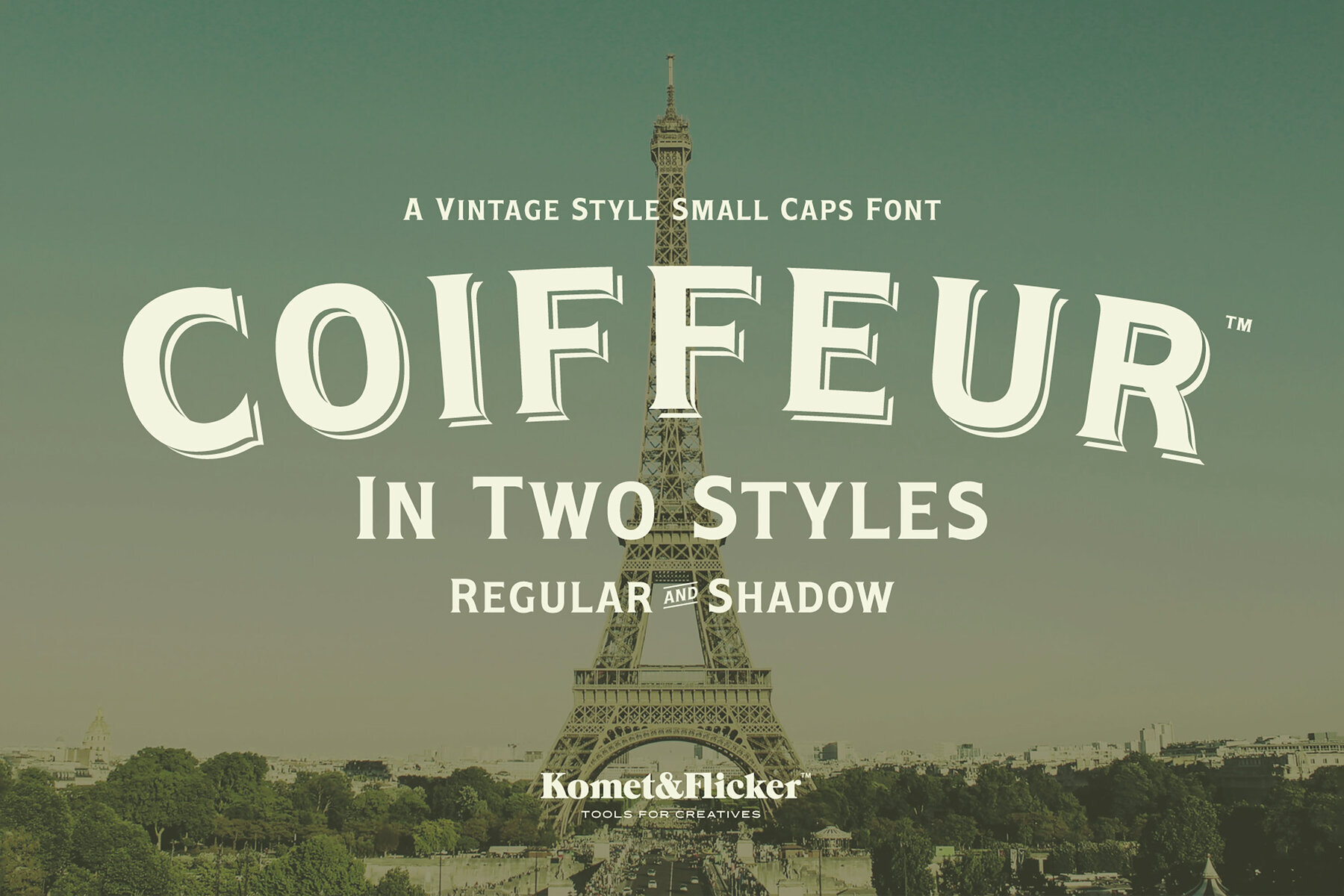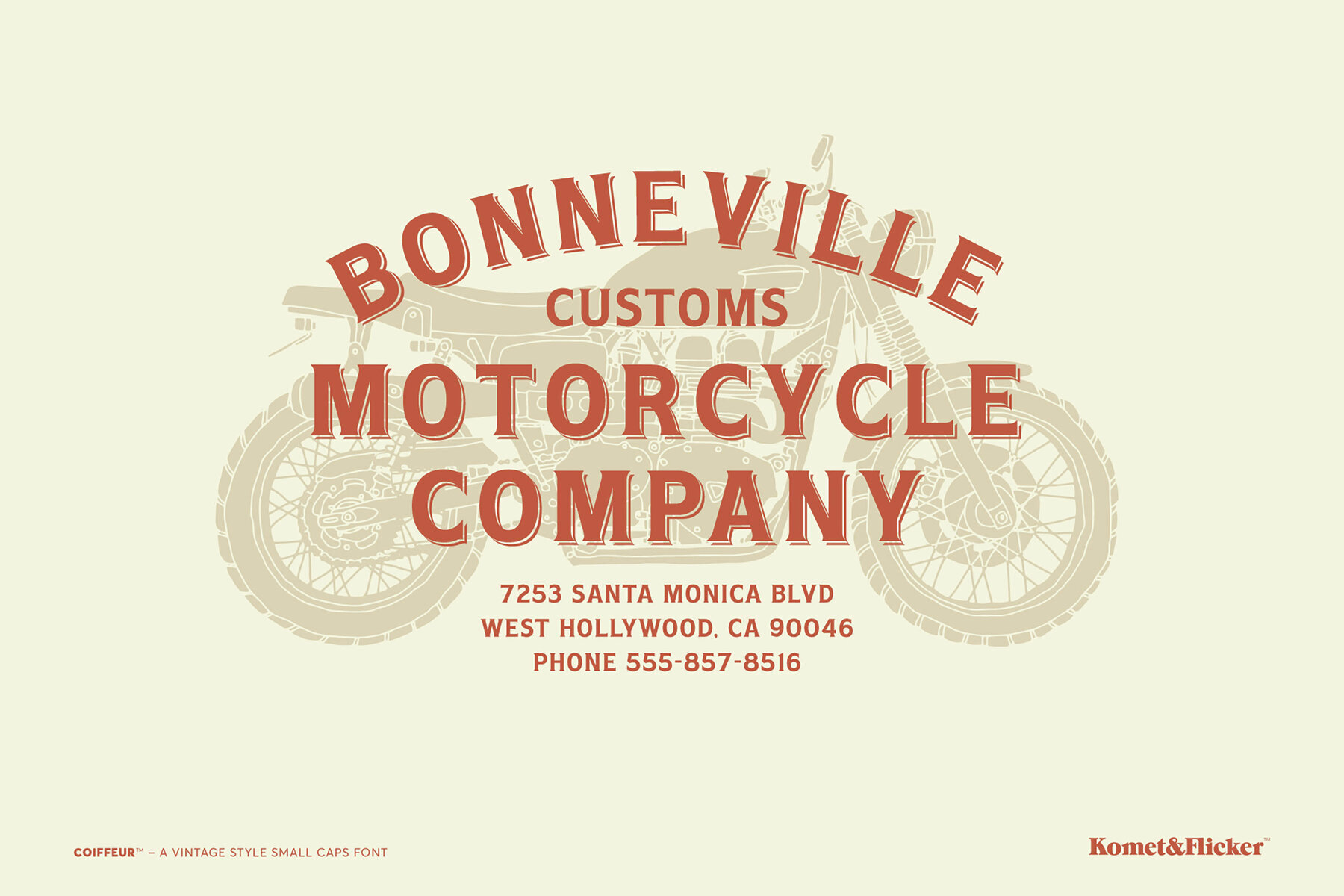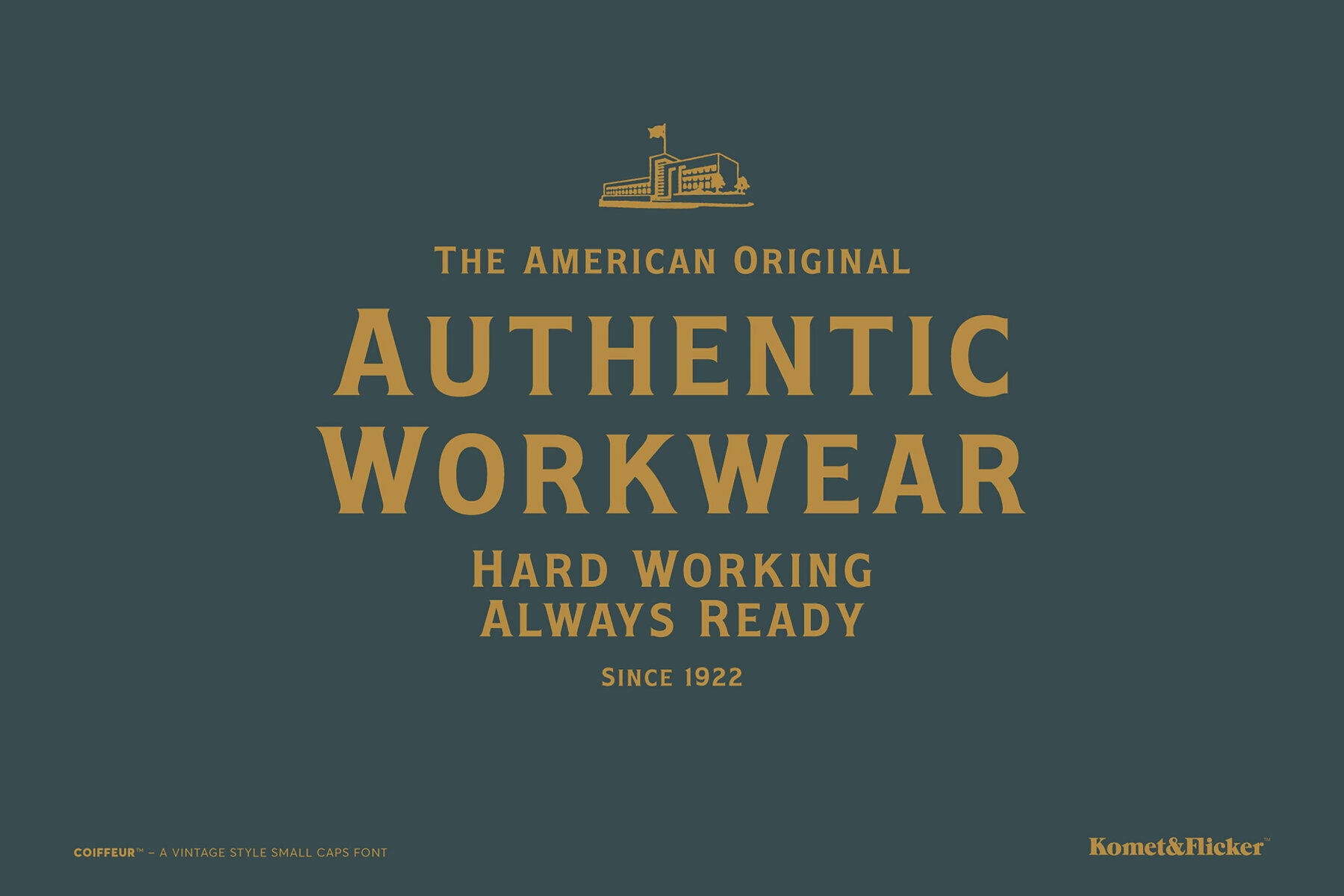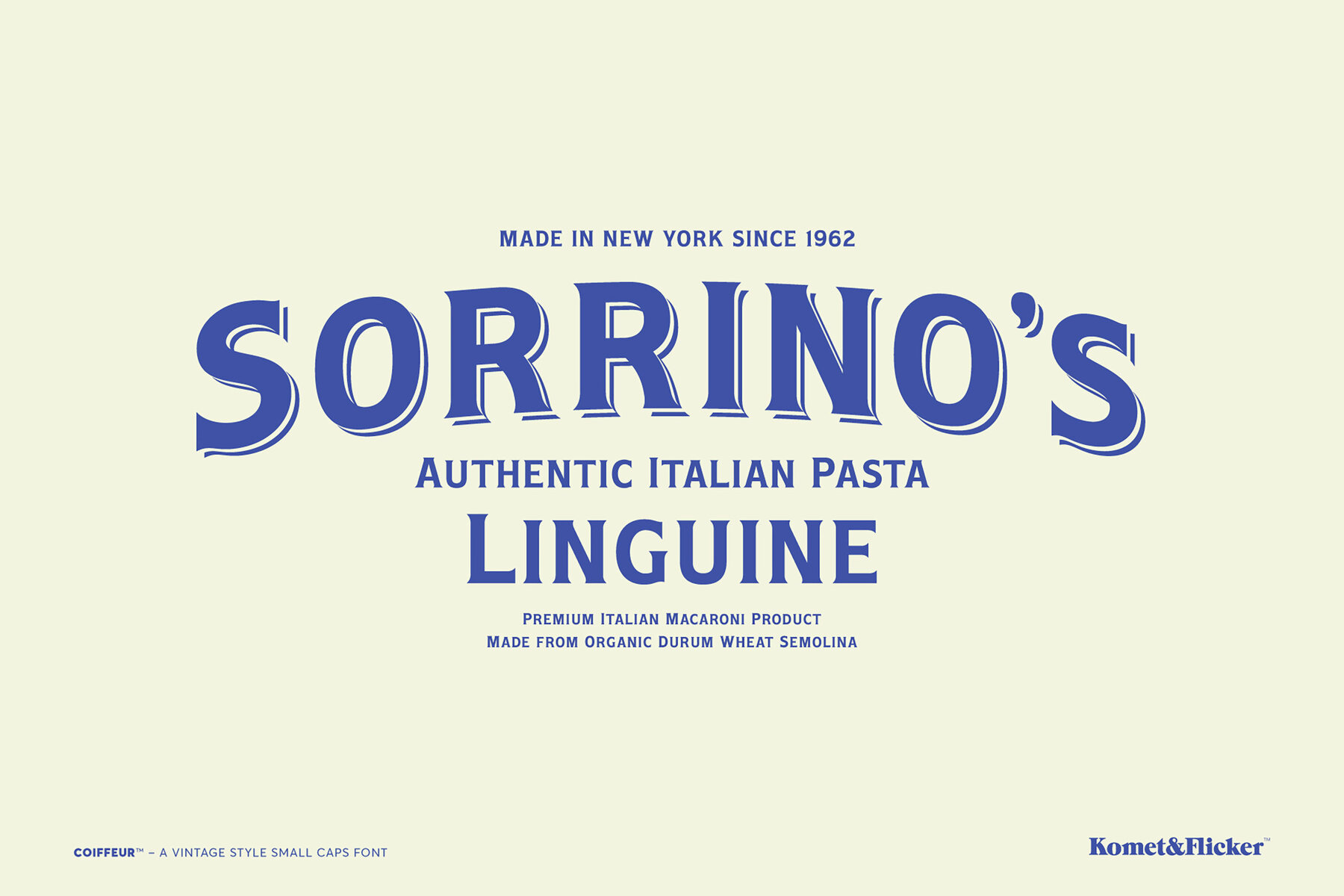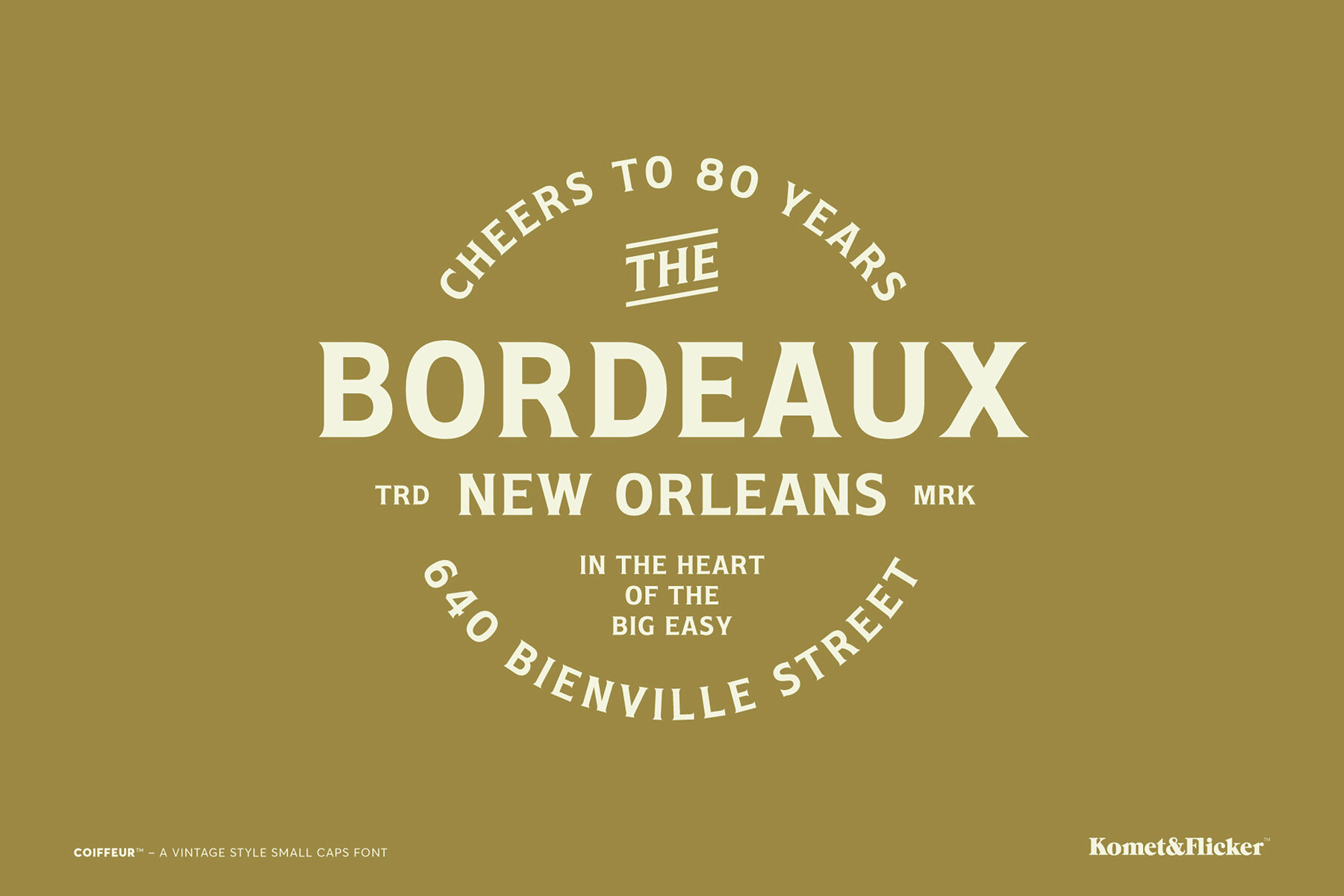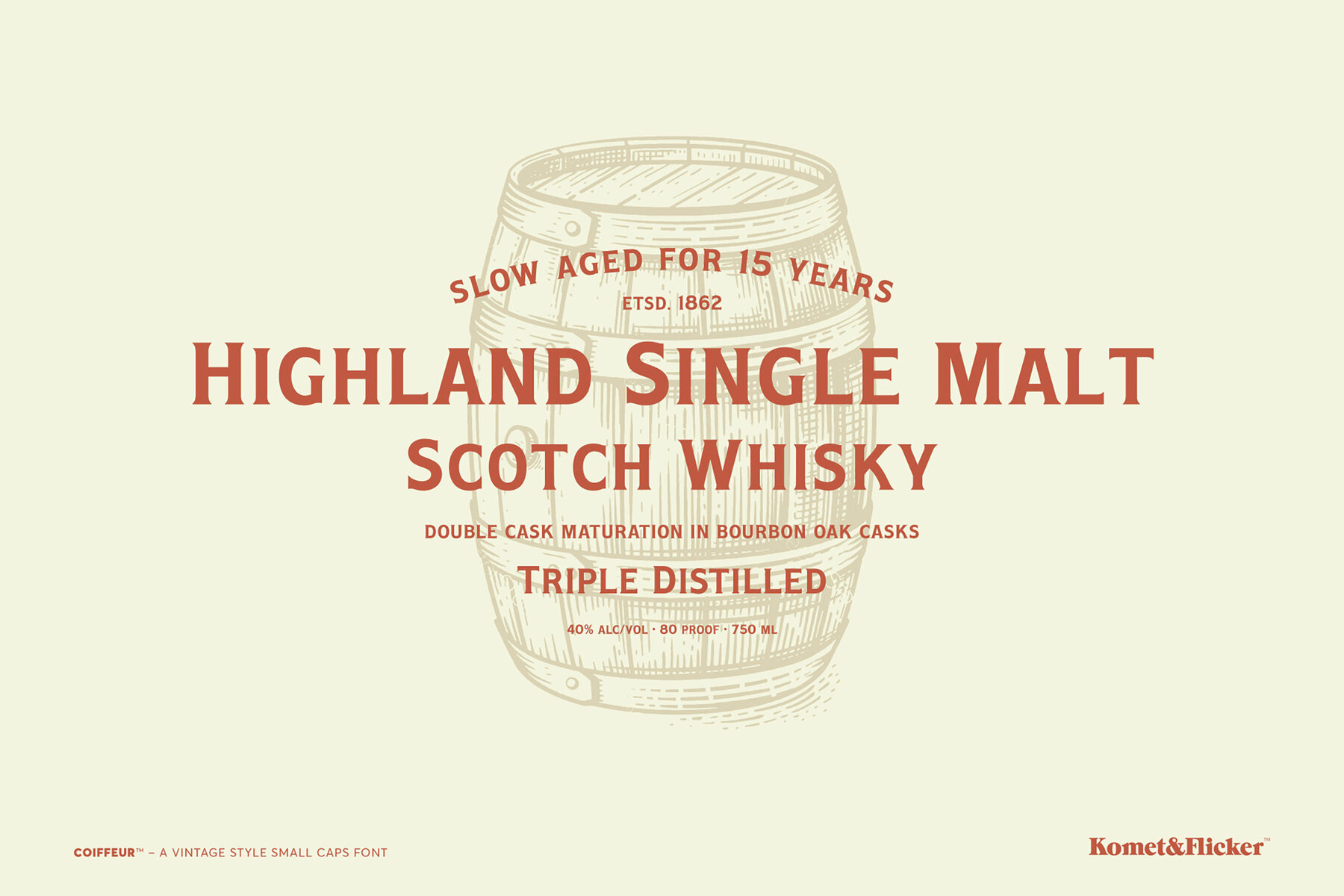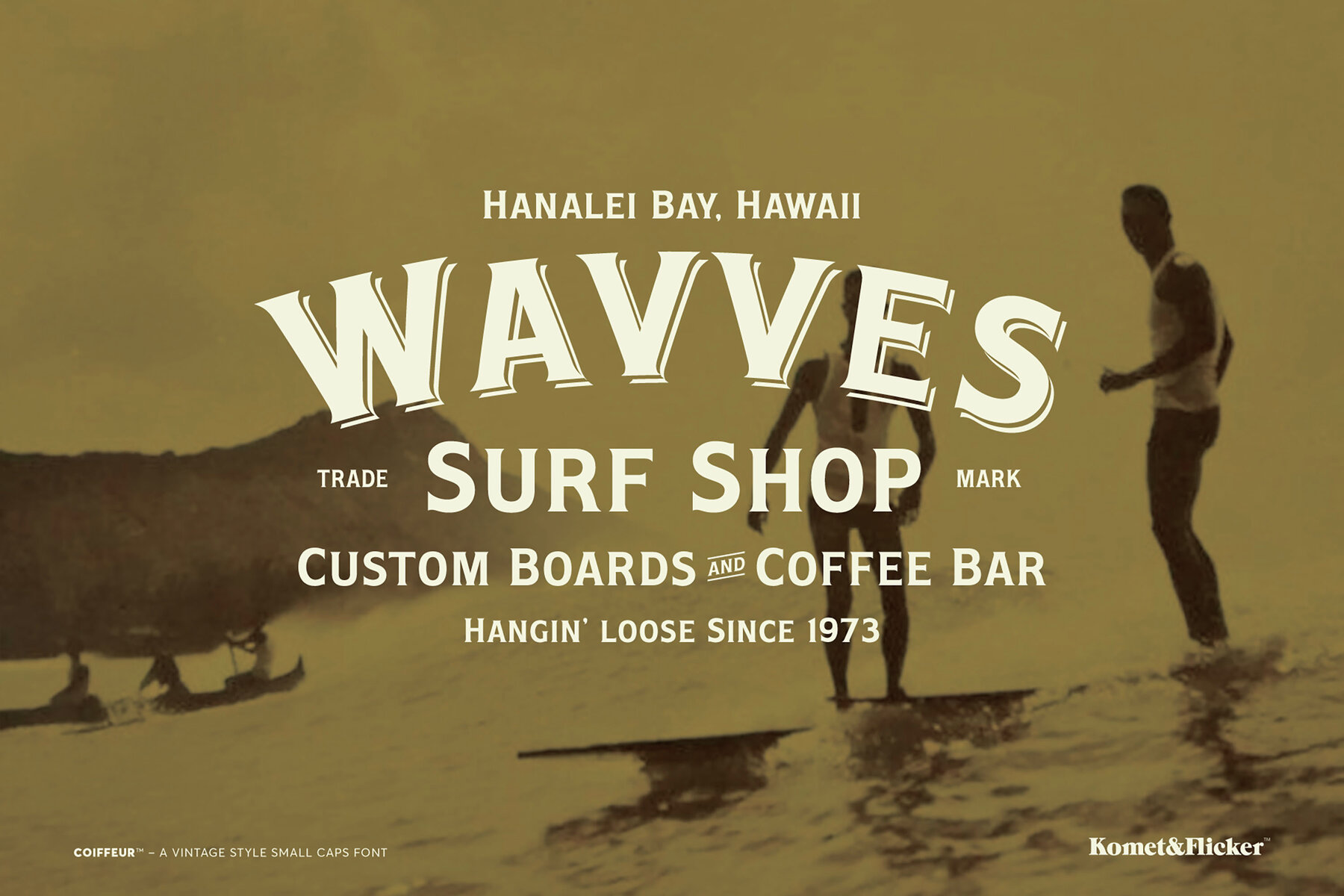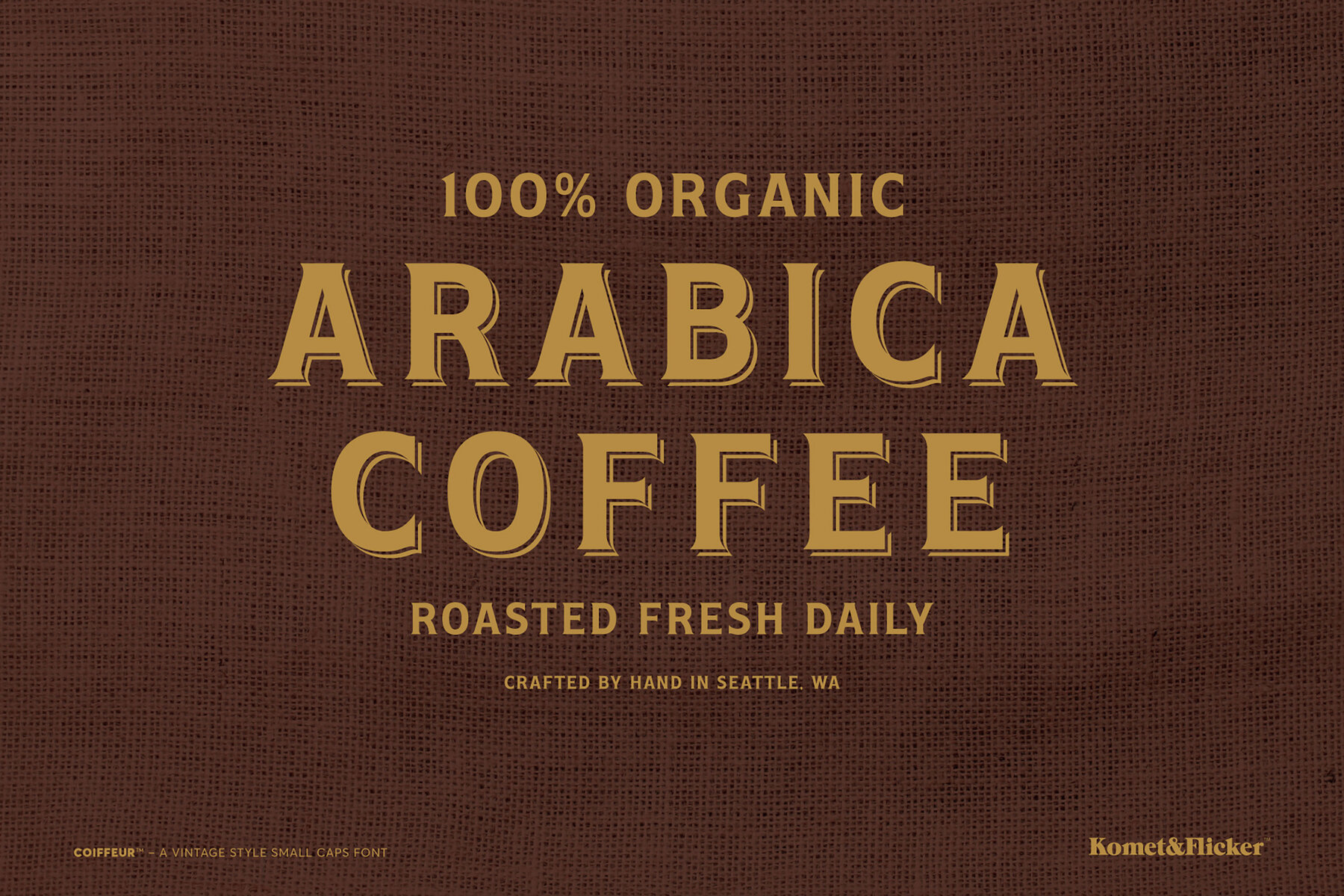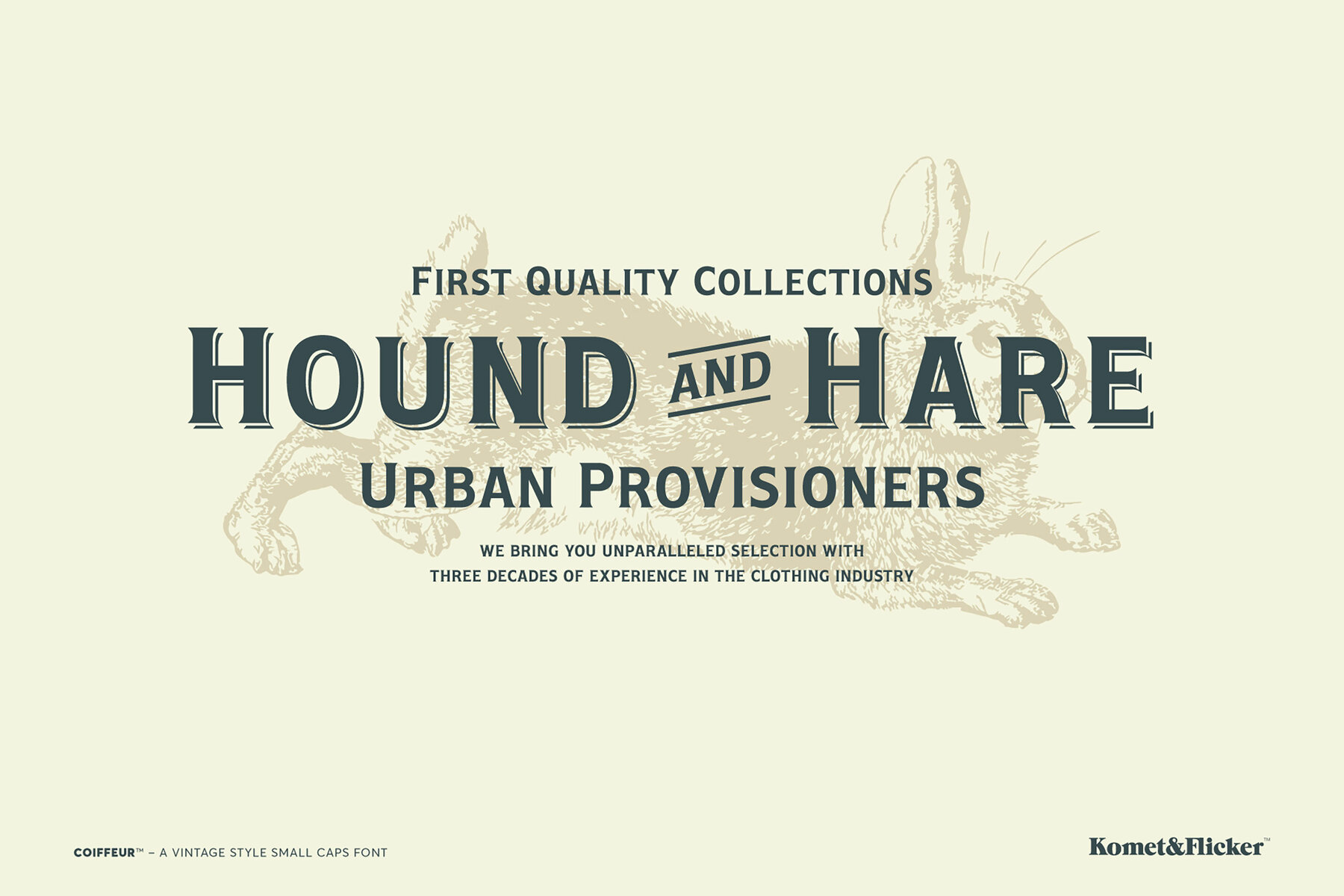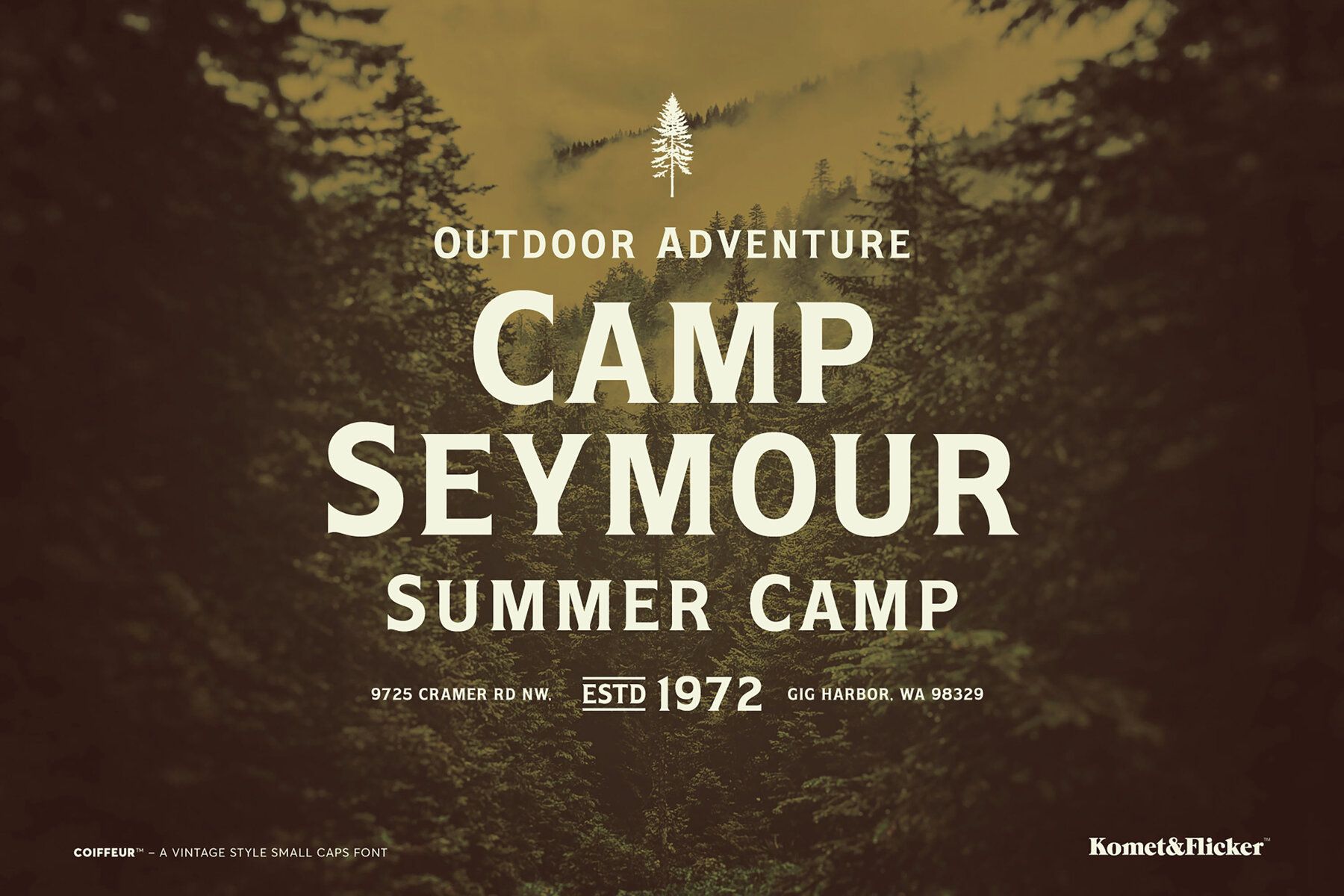
Coiffeur Font
Coiffeur Regular
Coiffeur Shadow
Discover Coiffeur, a captivating vintage-style small caps font that beautifully marries nostalgia with modern elegance. Inspired by the classic typefaces of vintage signage, Coiffeur has been thoughtfully updated to fit contemporary design needs, making it a perfect choice for those looking to evoke a sense of timeless charm. Coiffeur comes in two striking styles: a classic regular version and an inline shadow version that adds depth and dimension to your designs. Whether you're designing a brand identity, packaging, or restaurant graphics, Coiffeur brings a touch of sophistication and warmth to classic-inspired communications. To enhance your design experience, Coiffeur includes a unique set of 10 custom connecting words available in three styles (for a total of 30 extra glyphs), allowing for seamless integration and creativity in your typography. Elevate your projects with the distinctive allure of Coiffeur – where vintage charm meets modern flair.